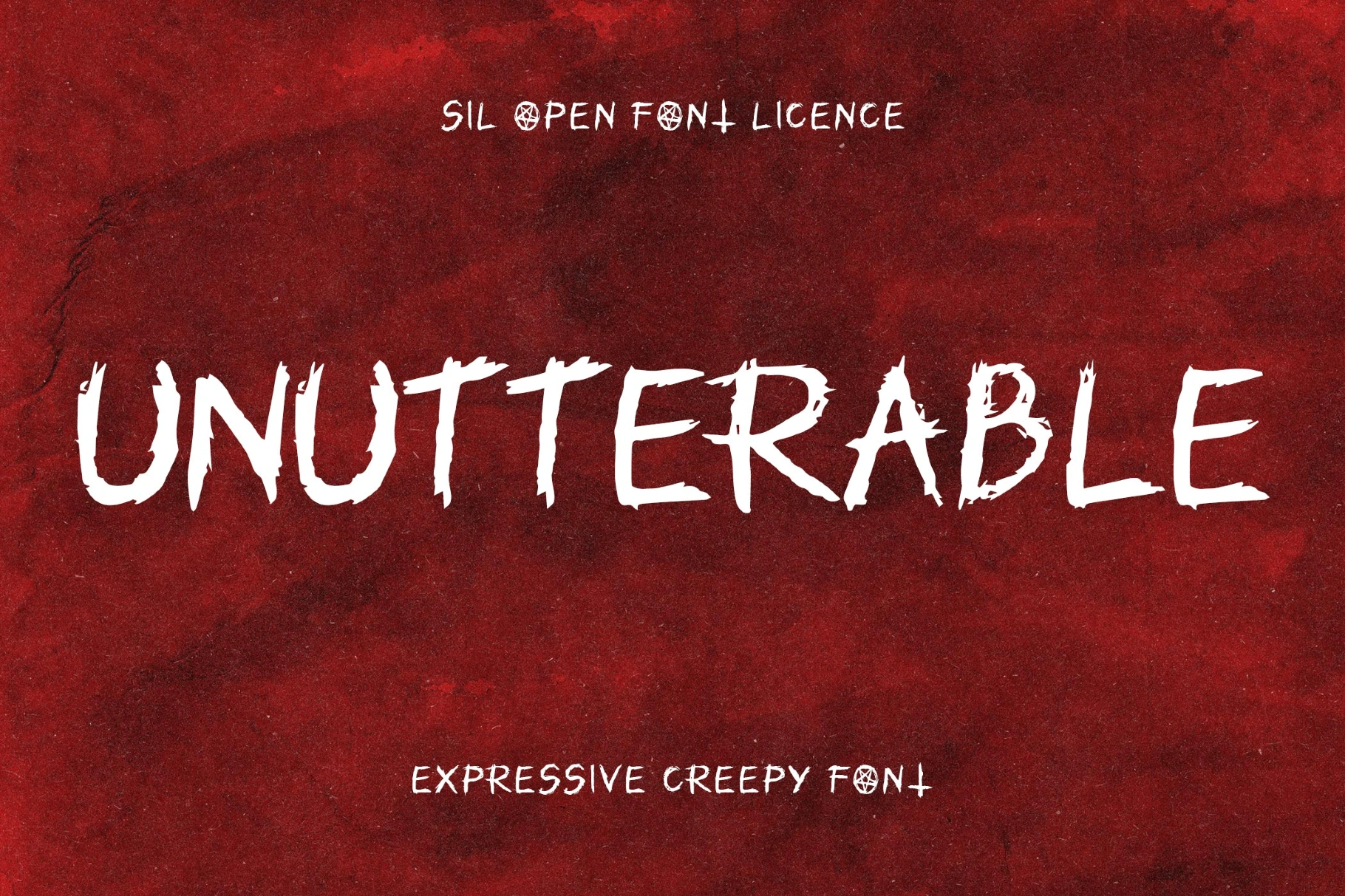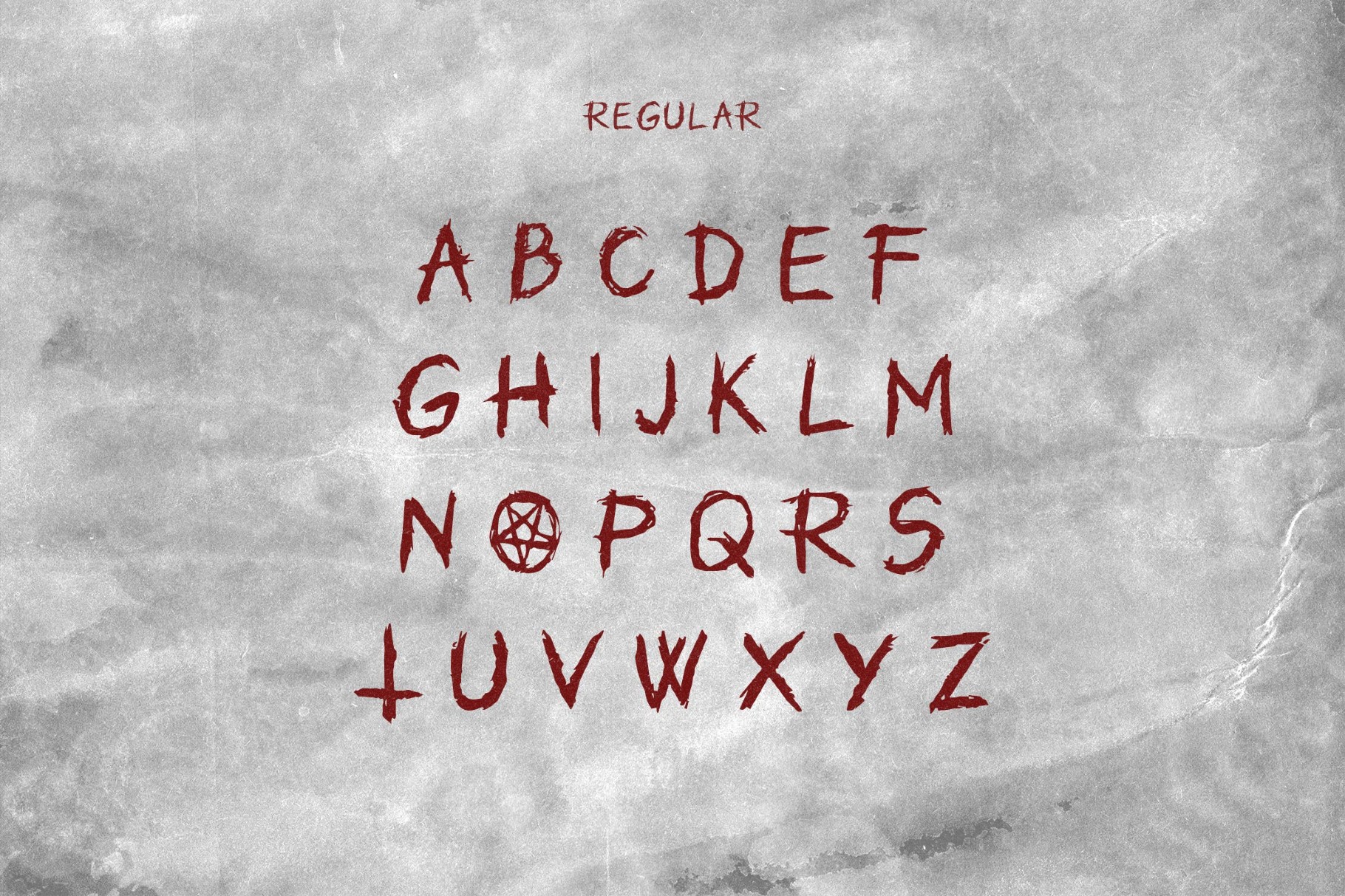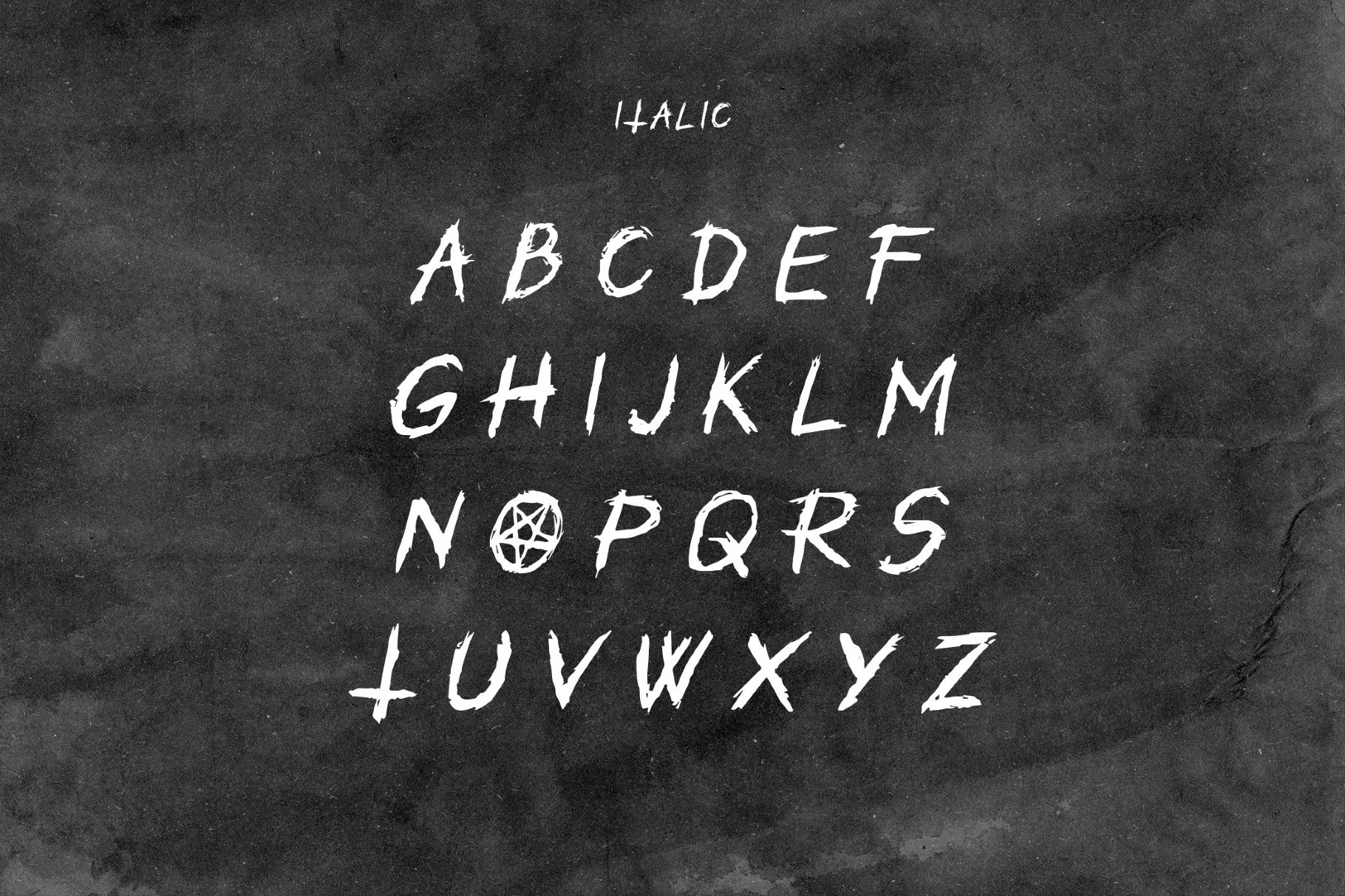
Unutterable / Creepy Font
Unutterable
Unutterable works well in compositions where atmosphere matters — horror posters, music artwork, title screens, or branding. The brush texture makes even simple layouts feel intense. This horror font delivers expressive mark-making with uneven strokes and heavily textured edges that feel carved. The letterforms carry tension and movement, with irregular widths and sharp turns for an aggressive rhythm.